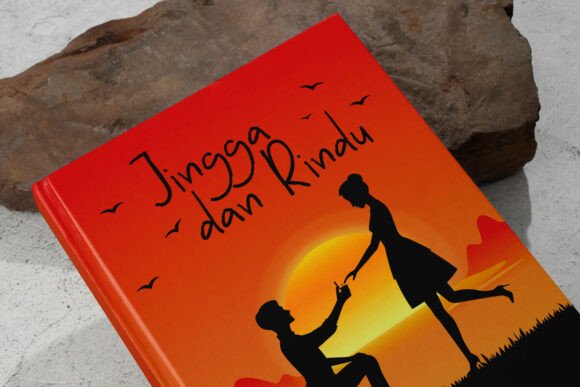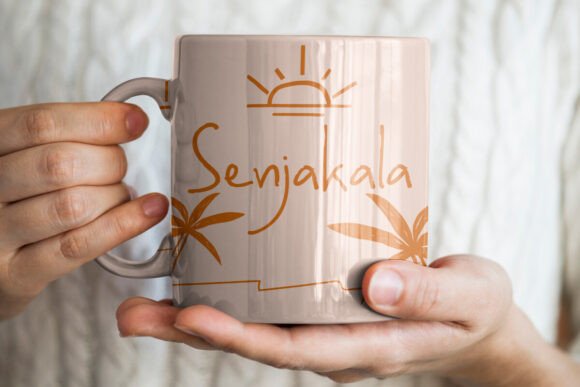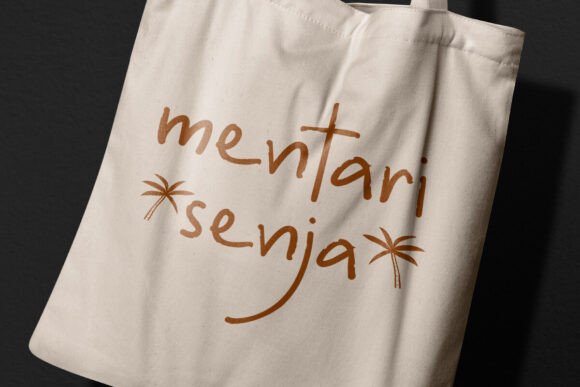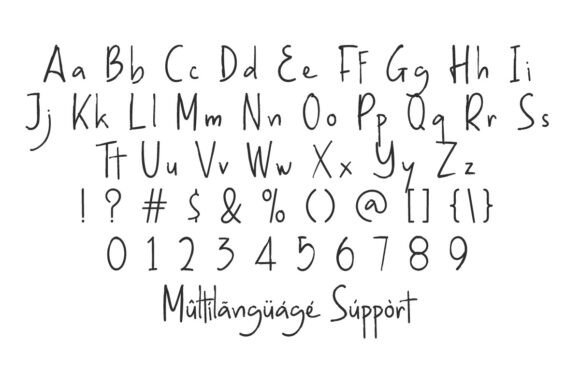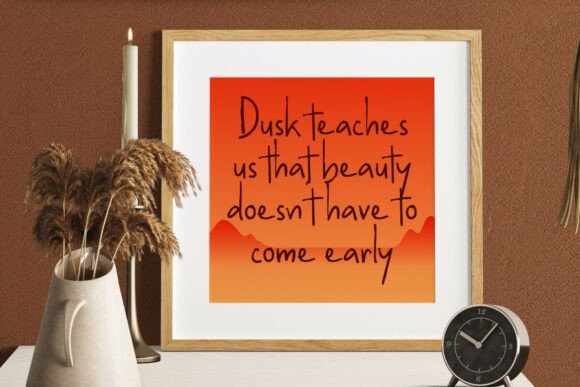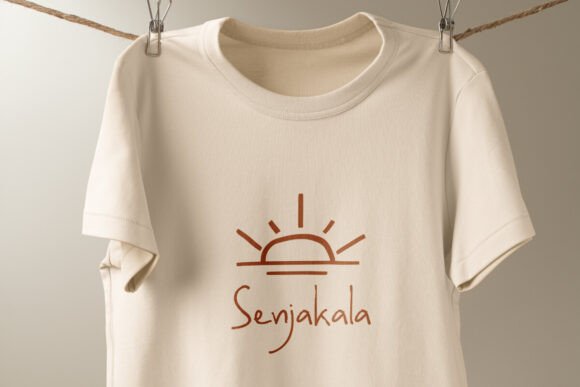
Introduction to Jingga Berkata Font
Do you remember that moment when you’re brainstorming ideas for a creative project and you stumble upon the perfect font? It’s like the whole design starts coming together in your mind. For designers, finding the right font can be the difference between a good design and a great one. And that’s exactly what Jingga Berkata Font offers – a unique and high-quality design resource that can elevate any project.
With its sleek, semi-thin black ink brush strokes, Jingga Berkata Font is a textured monoline handwriting light brush font that’s perfect for any design. From apps to branding, book covers to flyers, this font is a versatile design tool that can add a personal touch to your work. And the best part? It’s available for free download, making it a valuable resource for designers of all levels.
Key Features of Jingga Berkata Font
- High-quality, hand-drawn design perfect for creative projects and personal use.
- Transparent background, allowing for easy customization and blending with other design elements.
- Vector-based, scalable design that maintains its quality at any resolution or size, from small to large formats.
- Unique, expressive script style with a natural, handwritten feel, perfect for adding a personal touch to your designs.
- Perfect for use in a variety of creative projects, including digital art, graphic design, and typography-based designs.
Honest Review: Jingga Berkata Font
I recently had the chance to work with the Jingga Berkata Font, and I must say it’s a great addition to any high-quality design project. The font is perfect for creating unique and creative visuals.
- What works well: ✨ The font has a beautiful, hand-drawn feel to it, making it perfect for projects that require a personal touch. The transparent background also makes it easy to customize and use in various design settings.
However, there are a few limitations to keep in mind: ⚠️ The font may not be as versatile as some other options, and it may not be suitable for projects that require a more formal or professional tone.
Overall, I’m impressed with the Jingga Berkata Font. It’s a great design resource for anyone looking to add some creativity to their project. With its unique feel and free download option, it’s definitely worth checking out.
Common Use Cases for Jingga Berkata Font
Jingga Berkata Font is commonly used in creative projects, such as graphic design, digital art, and typography. It’s also used in marketing materials, such as brochures and business cards.